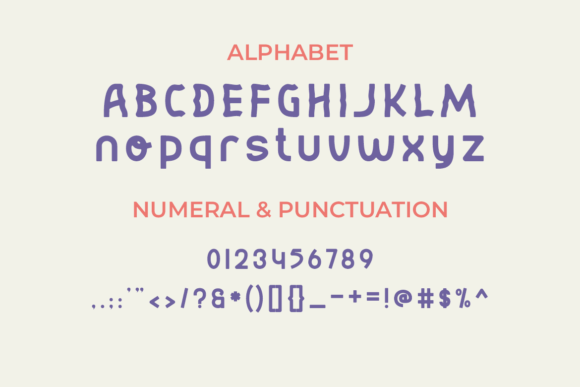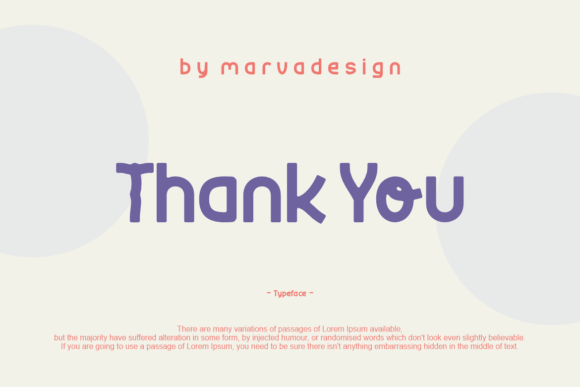
Introducing Awesomer Font: The Ultimate Sans Serif Display Font for Your Creative Projects
Are you tired of using the same old fonts in your designs? Look no further! Awesomer Font is here to revolutionize your creative projects with its unique sans serif display style. This cool and quirky font is perfect for designers and crafters who want to add a touch of whimsy to their work.
What Makes Awesomer Font So Special?
Awesomer Font is a one-of-a-kind sans serif display font that is sure to brighten up each of your designs. Its whimsical and quirky style makes it perfect for a variety of creative projects, from posters and flyers to social media graphics and website headers. With Awesomer Font, you can add a dash of personality to your work and make it stand out from the crowd.
Key Features of Awesomer Font
- Unique Sans Serif Style: Awesomer Font boasts a fresh and modern sans serif style that is sure to grab attention.
- Whimsical and Quirky: This font’s playful and quirky vibe makes it perfect for designs that require a bit of personality.
- Display Font: Awesomer Font is specifically designed as a display font, making it ideal for headlines, titles, and other large-format text.
- Easy to Read: Despite its unique style, Awesomer Font remains easy to read, even at smaller sizes.
How to Use Awesomer Font in Your Designs
Awesomer Font is incredibly versatile and can be used in a variety of design projects. Here are a few ideas to get you started:
- Posters and Flyers: Use Awesomer Font to create eye-catching posters and flyers that grab attention.
- Social Media Graphics: Add a touch of personality to your social media graphics with Awesomer Font.
- Website Headers: Use Awesomer Font to create bold and eye-catching website headers that set the tone for your brand.
- Branding and Packaging: Awesomer Font is perfect for branding and packaging designs that require a bit of whimsy and personality.
Why Choose Awesomer Font?
With so many fonts to choose from, why should you choose Awesomer Font? Here are a few reasons:
- Unique Style: Awesomer Font offers a unique style that will set your designs apart from the crowd.
- High-Quality Design: Awesomer Font is designed to the highest standards, ensuring that it looks great in any design.